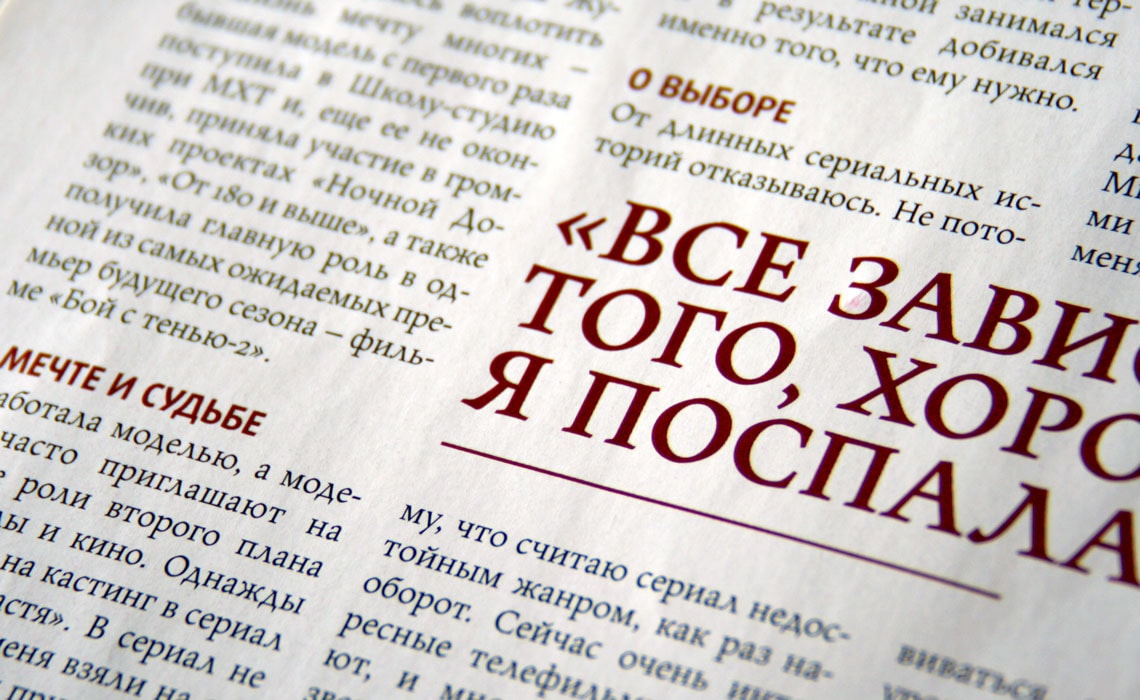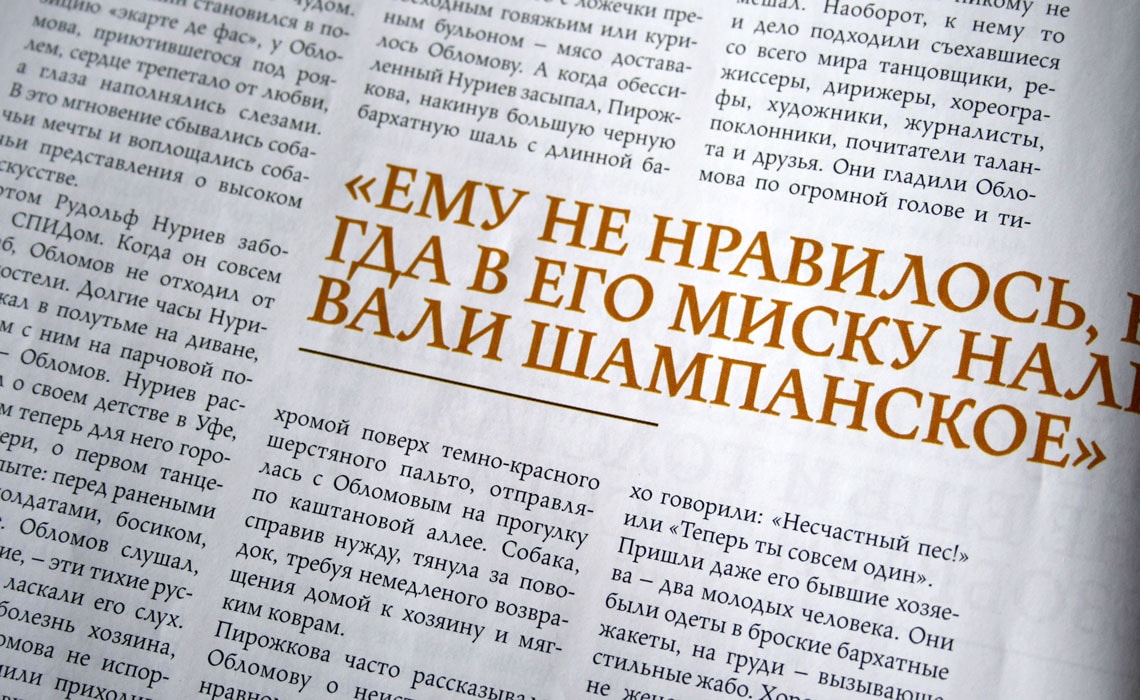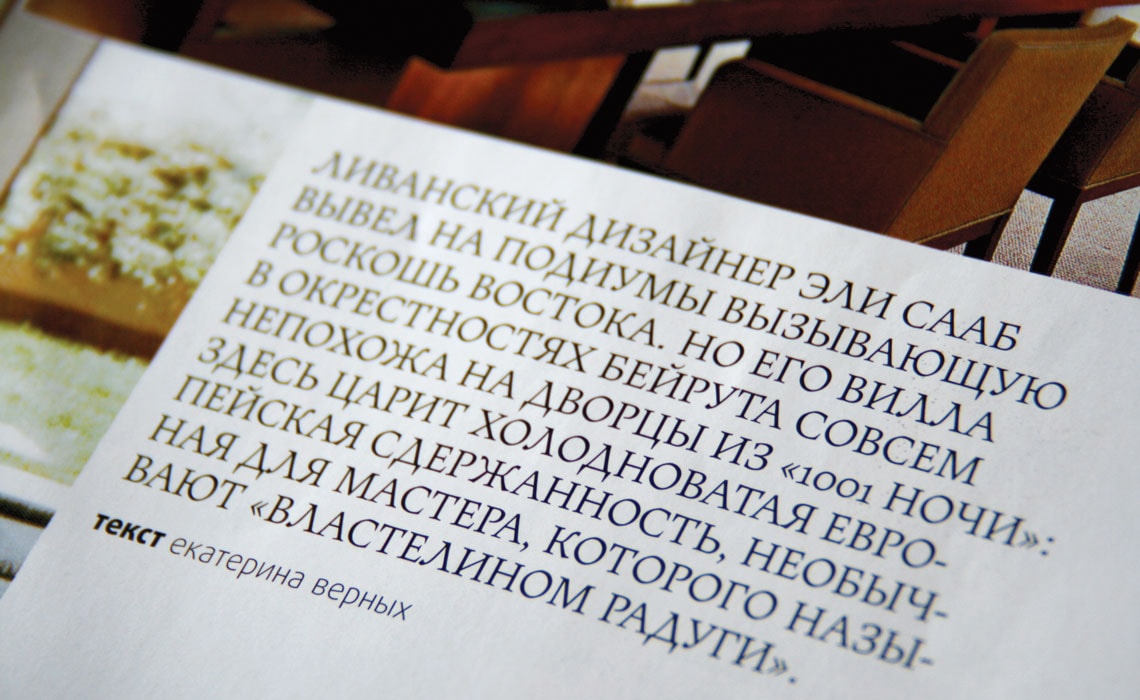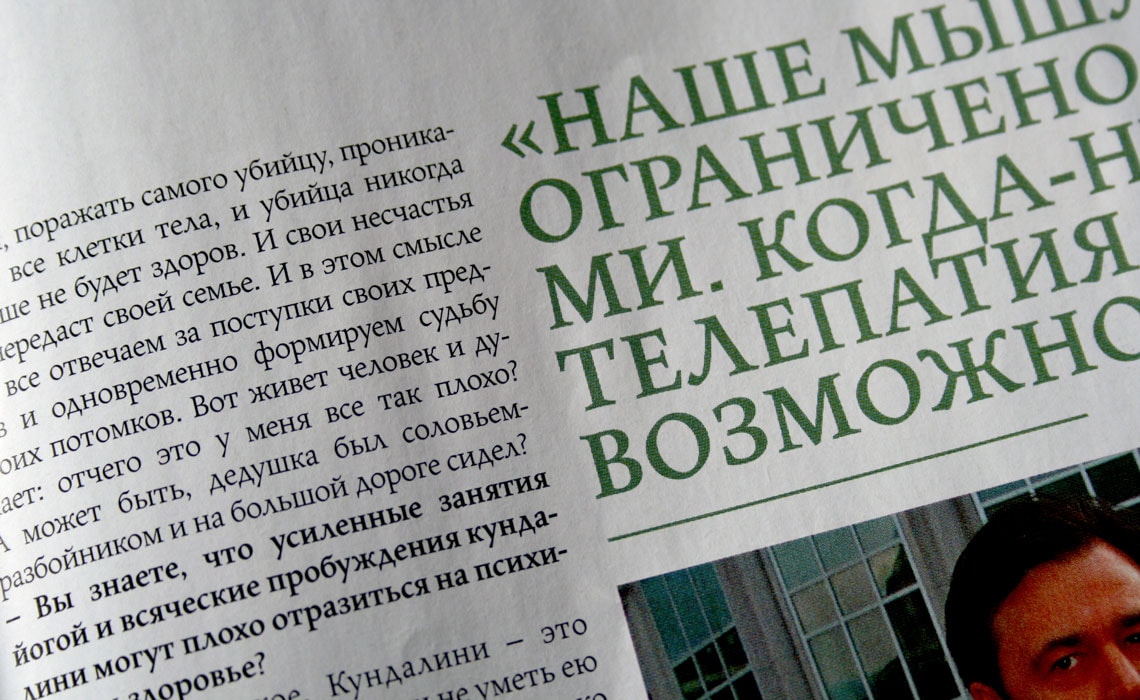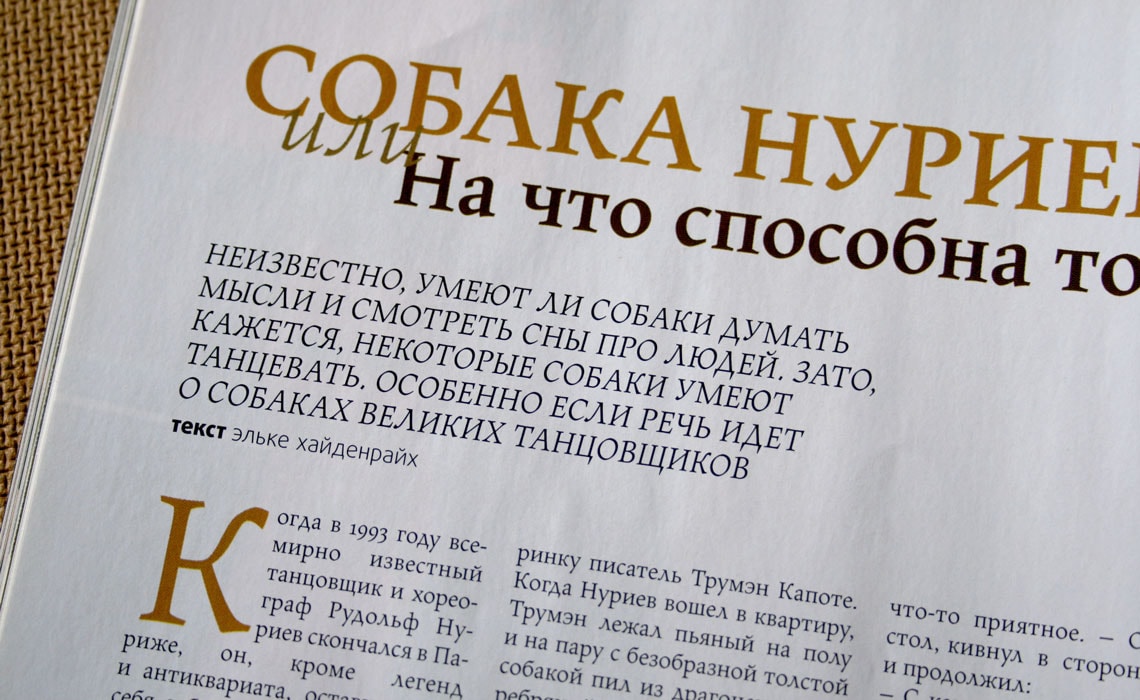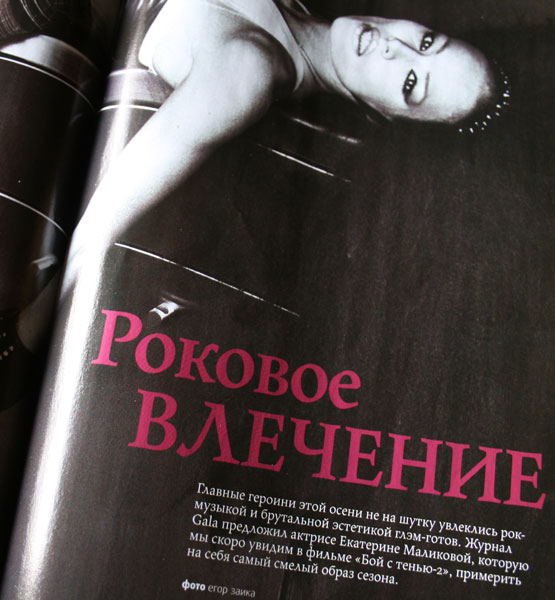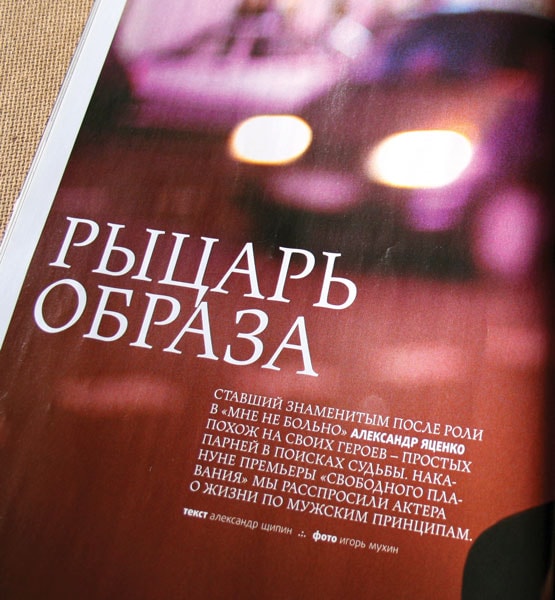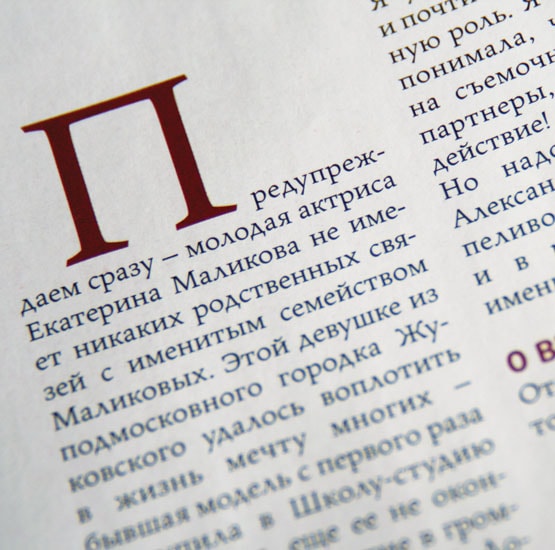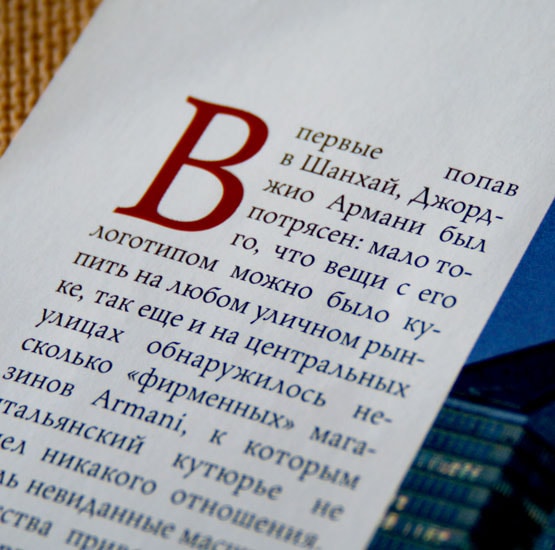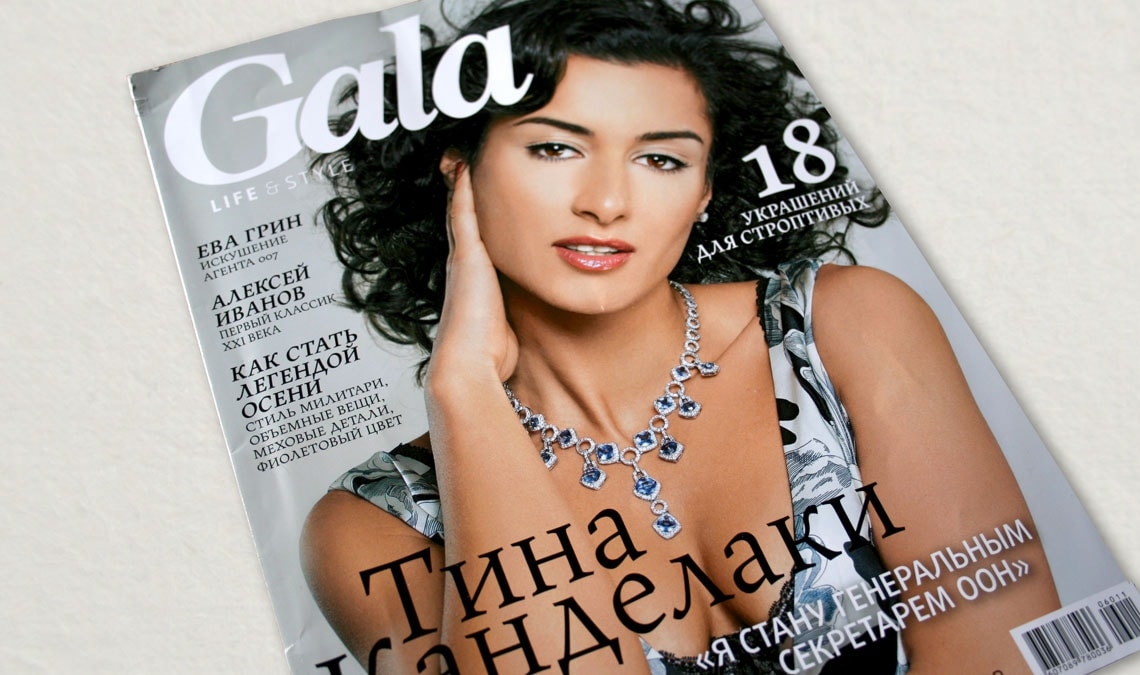
Gala Russia
German publisher Gruner + Jahr commissioned Bartos Kersten to design the Russian edition of the people's magazine GALA. For the elegant and quiet typography, he choose Maiola Cyrillic as the main body text typeface. On some occasion Maiola appears in headlines too.